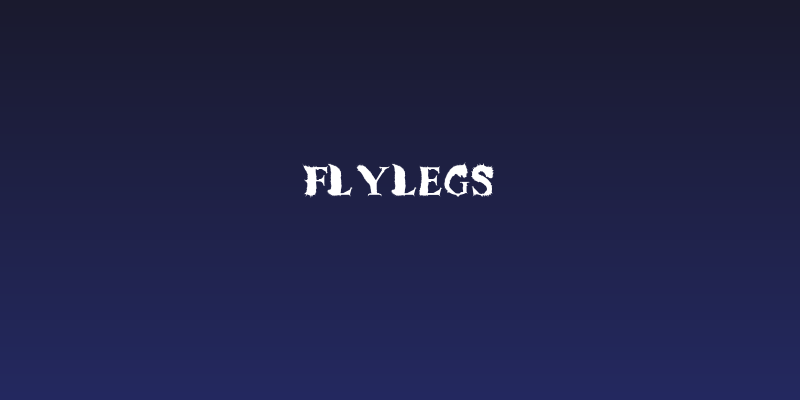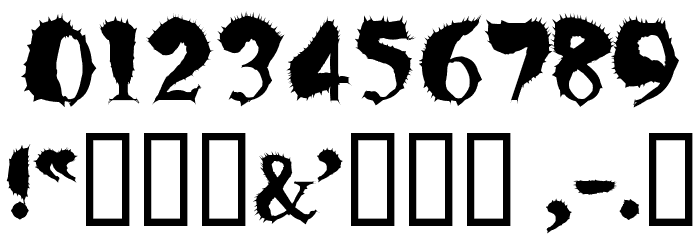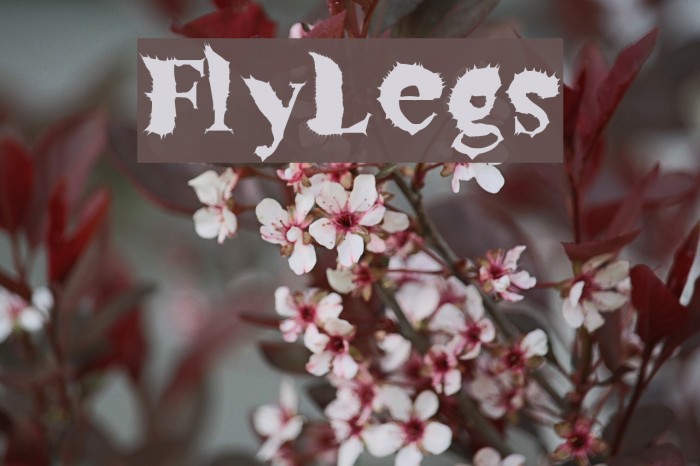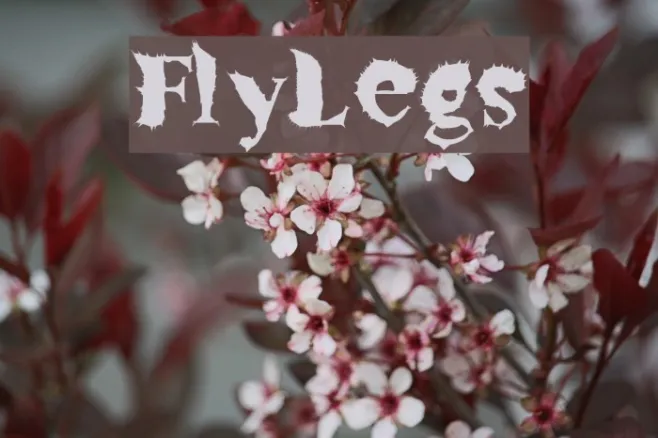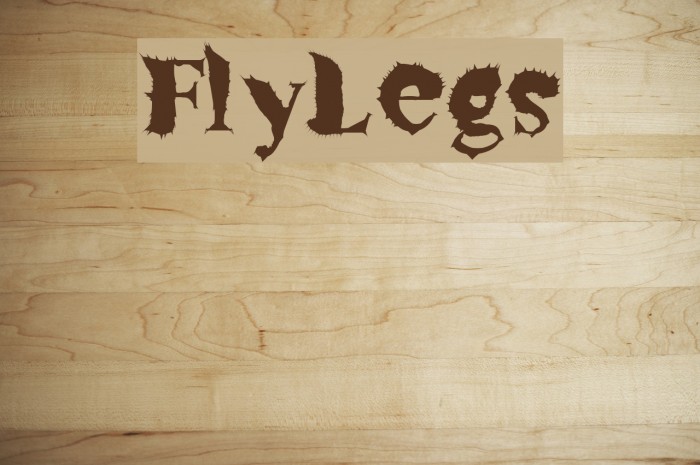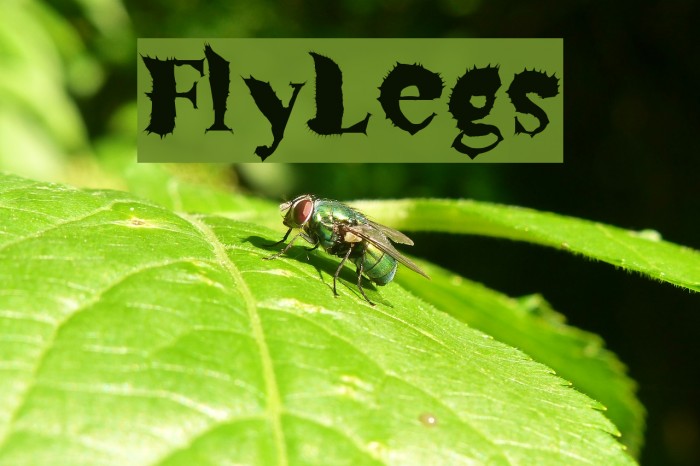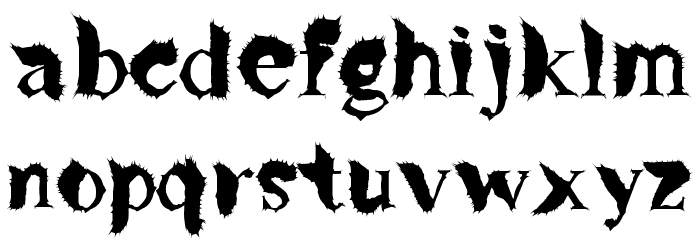
FlyLegs Font
This font features a unique and edgy design with jagged, thorn-like edges that give it a wild and untamed appearance. The characters are bold and have a high contrast between thick and thin strokes, creating a dramatic and eye-catching effect. The uppercase and lowercase letters maintain a consistent style, with sharp points and irregular outlines that suggest movement and energy. The numbers and special characters follow the same aesthetic, making the font suitable for projects that require a bold statement. Its distinctive style makes it ideal for creative and unconventional designs.
| Proposed Projects | Ideal for Halloween-themed graphics, edgy posters, album covers, and any project needing a bold, unconventional look. |